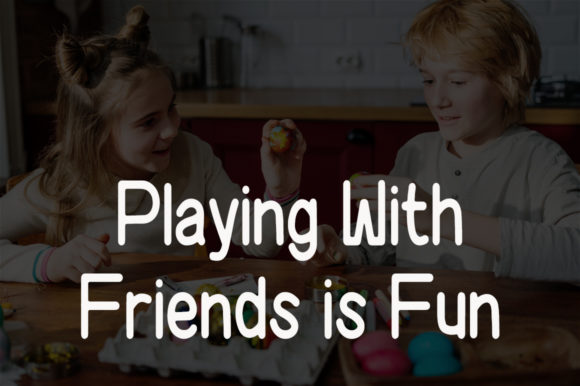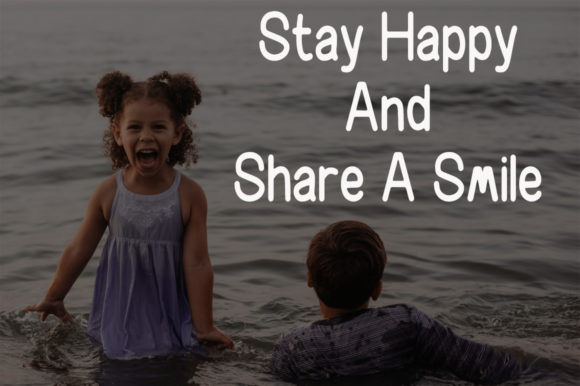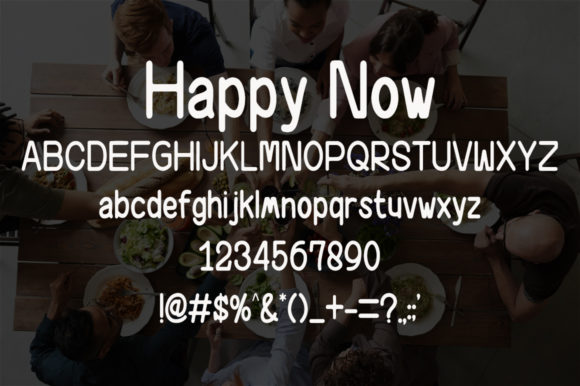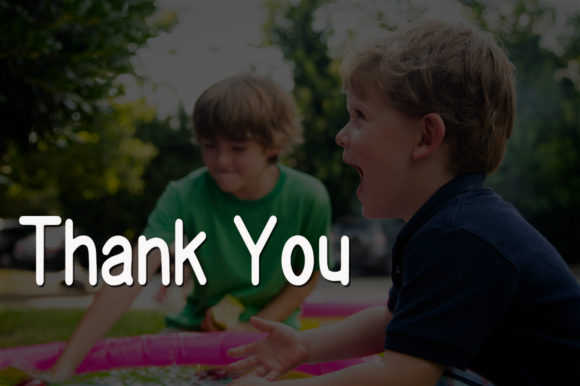
Introducing Happy Now Font: The Sweet and Friendly Handwritten Font
Are you tired of using the same old fonts in your designs? Do you want to add a personal touch to your projects? Look no further than Happy Now Font, a sweet and friendly handwritten font that’s perfect for designers and crafters alike. With its natural and unique style, Happy Now Font is incredibly versatile and can be used in a wide range of designs, from invitations and greeting cards to branding and packaging.
The Characteristics of Happy Now Font
So, what makes Happy Now Font so special? For starters, its handwritten style gives it a warm and approachable feel that’s perfect for designs that need a personal touch. The font’s natural and unique style also makes it stand out from more traditional fonts, adding a touch of whimsy and playfulness to any design.
One of the best things about Happy Now Font is its versatility. Whether you’re designing a children’s book, a wedding invitation, or a social media graphic, this font is sure to fit the bill. Its friendly and approachable style makes it perfect for designs that need to appeal to a wide range of audiences, from kids to adults.
The Benefits of Using Happy Now Font
Another benefit of using Happy Now Font is its high-quality design. The font has been carefully crafted to ensure that it’s clear and legible, even at small sizes. This makes it perfect for designs that need to include a lot of text, such as blog posts, articles, and social media graphics.
How to Use Happy Now Font in Your Designs
So, how can you use Happy Now Font in your designs? The possibilities are endless! Here are a few ideas to get you started:
- Use Happy Now Font to create custom invitations for weddings, birthday parties, and other special occasions.
- Add a personal touch to your branding and packaging with Happy Now Font.
- Use Happy Now Font to create eye-catching social media graphics and blog posts.
- Create custom greeting cards and gift tags with Happy Now Font.
Tips and Tricks for Getting the Most Out of Happy Now Font
Here are a few tips and tricks for getting the most out of Happy Now Font:
- Experiment with different font sizes and colors to find the perfect combination for your design.
- Use Happy Now Font in combination with other fonts to create a unique and eye-catching design.
- Don’t be afraid to get creative and try out new and unusual design ideas.